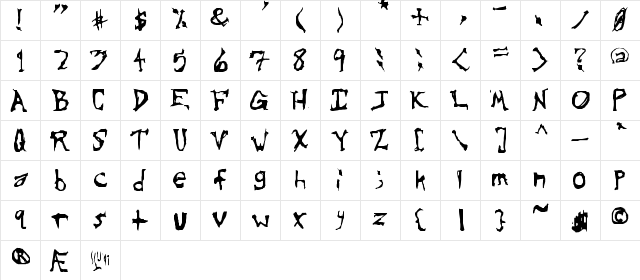
Sinister Plot Regular Font Preview
Sinister Plot Regular
Sinister Plot Regular Font Details
Design Context for Sinister Plot Typeface
Sinister Plot is a composed and adaptable typeface that performs quietly and consistently across a wide range of design contexts.